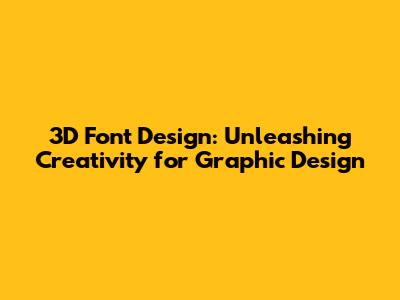
Hey guys! Ever wondered how those super cool, eye-catching 3D fonts are made? They're everywhere, from movie posters to video games, and even on your favorite websites. This article will dive deep into the awesome world of 3D font design, breaking down everything you need to know, from the basic concepts to the tools you can use to create your own masterpieces. We will also explore the use of pseoscoscse bullpen scsc 3d font. Get ready to unleash your inner designer and learn how to bring your text to life with depth, dimension, and a whole lot of style!
What is 3D Font Design?
So, what exactly is 3D font design? Basically, it's the art of taking regular, flat text and transforming it into a three-dimensional form. This means adding depth, shadow, and volume to the letters, making them appear as if they're popping off the screen or page. The result is often visually striking and attention-grabbing. It is way more interesting to the viewers. Unlike the flat, two-dimensional fonts we're used to seeing every day, 3D fonts add a whole new layer of visual interest. They can convey a sense of modernity, creativity, and even realism, depending on how they're designed. They are particularly effective for headlines, logos, and any design element where you want to make a bold statement. Think about the logos of major gaming companies, animated movies, and tech companies; they often utilize 3D fonts to establish a memorable brand image. Think about the different types of 3D fonts: some might have a smooth, glossy look, others might have a rough, textured appearance. Some might be bold and chunky, while others could be sleek and futuristic. The possibilities are truly endless, and that's one of the things that makes 3D font design so exciting.
The Benefits of Using 3D Fonts
Okay, so we know what 3D fonts are, but why use them? Well, there are a lot of good reasons! First and foremost, 3D fonts grab attention. In a world saturated with visual content, standing out is essential. A well-designed 3D font can instantly make your design more memorable and engaging. They also can greatly enhance your branding and visual identity. A unique 3D font can become a signature element of your brand, helping you build recognition and create a strong brand personality. Beyond that, 3D fonts offer versatility. You can use them in a wide range of design projects, from websites and print materials to video animations and digital art. Also, 3D fonts can be very effective in conveying a specific mood or message. For example, a sleek, metallic 3D font might suggest professionalism and sophistication, while a playful, cartoonish font might be ideal for a children's product or service. Finally, 3D fonts can be a lot of fun to work with! The creative possibilities are vast, and experimenting with different styles, colors, and effects can be a really rewarding experience. With the right tools and a little bit of imagination, you can create something truly unique and impressive. Also, it’s not just about the look; it's about the feeling a 3D font evokes. Does it feel heavy and solid, light and airy, or something in between? Considering these factors helps you make the best design choices.
Tools and Software for 3D Font Design
Alright, let’s get into the nitty-gritty. If you're serious about creating your own 3D fonts, you'll need the right tools. Luckily, there's a wide variety of software available, ranging from free and user-friendly options to professional-grade programs. Choosing the right software depends on your experience level, budget, and the specific design goals. Here’s a quick rundown of some of the most popular and effective tools for creating 3D fonts.
Free and Beginner-Friendly Options
If you're just starting out, there are several free options that are perfect for getting your feet wet. Blender is a powerful, open-source 3D creation suite that's surprisingly accessible for beginners. While it has a steep learning curve, Blender offers a wealth of tutorials and a supportive community to help you along the way. Another great option is Tinkercad, a web-based 3D modeling tool that's incredibly easy to use. It's a great choice for creating simple 3D fonts quickly and easily. While Tinkercad's functionality is more limited than other software, it's perfect for beginners. Both are great options if you are on a budget and still want to create awesome designs.
Intermediate-Level Software
Once you’ve got a handle on the basics, you might want to level up with some more advanced software. Autodesk Fusion 360 is a cloud-based 3D CAD/CAM software that's often used by designers and engineers. It has a comprehensive set of features and is relatively easy to learn, with plenty of online tutorials. Also, SketchUp is another great option, with a user-friendly interface and a wide range of plugins that extend its functionality. SketchUp is particularly well-suited for architectural and interior design but can also be used to create impressive 3D fonts. These programs offer more flexibility and control over your designs, letting you add more detail and customize your fonts to your heart's content.
Professional-Grade Software
For professional designers, there are a few industry-standard programs that offer the ultimate in power and control. Cinema 4D is a favorite among motion graphics artists, with its intuitive interface and powerful rendering capabilities. It's a great choice for creating dynamic and visually stunning 3D fonts for animation and video. Another excellent option is 3ds Max, a comprehensive 3D modeling, animation, and rendering software. It's often used in the gaming and film industries, and it's capable of producing incredibly realistic and detailed 3D fonts. While these programs come with a higher price tag and a steeper learning curve, they offer unparalleled control and flexibility. With professional-grade software, you can truly bring your creative vision to life.
Designing Your Own 3D Fonts: A Step-by-Step Guide
Ready to get started? Creating your own 3D font design can seem daunting, but it's totally achievable, even for beginners. Here's a step-by-step guide to help you get started, and to get you familiar with using a pseoscoscse bullpen scsc 3d font.
Step 1: Choose Your Software
First things first: choose the software that best suits your needs and skill level. If you're just starting out, start with a free program like Blender or Tinkercad. If you have some experience, you might want to consider Autodesk Fusion 360 or SketchUp. It's best to try a few different options before committing to one. Also, consider the types of projects you'll be working on and select software that aligns with your goals. For instance, if you are planning to create 3D fonts for animation, Cinema 4D might be the right choice. If you're designing for print, you may lean towards software with more robust texturing and rendering options.
Step 2: Select a Font
Next, choose a font. This is a crucial step, as the font you select will determine the overall style and personality of your 3D design. If you're planning to modify an existing font, look for one that is easily adaptable and has a clear, well-defined shape. You might choose a bold, sans-serif font for a modern look or a more ornate serif font for a vintage vibe. Also, consider the weight and style of the font. A thicker font will provide a more substantial base for your 3D design, while a thinner font might be better suited for a more delicate aesthetic. Don't be afraid to experiment with different fonts until you find one that you like and that fits the mood you want to create.